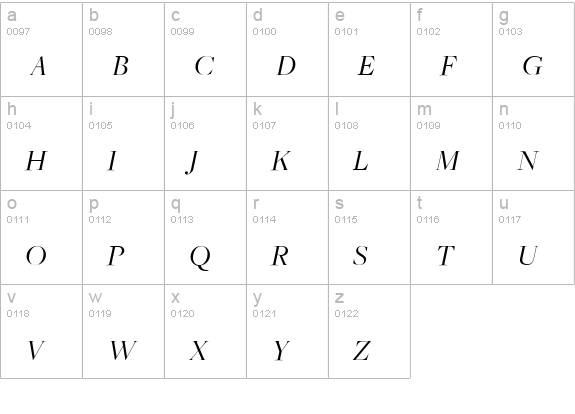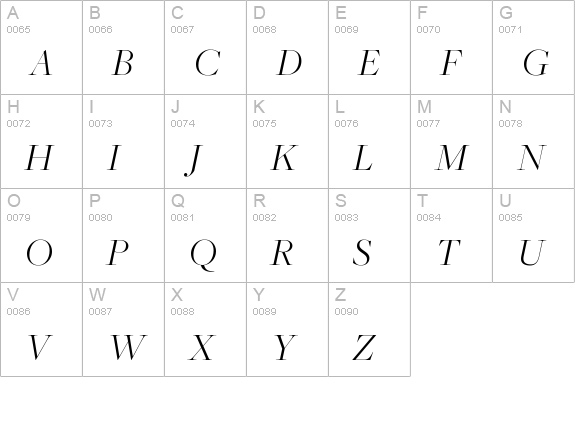
FreightBigLightItalicSC Font Details
FreightBigLightItalicSC is a sleek and elegant font that exudes sophistication and modernity. Its slender and italicized design adds a touch of style to any project, making it perfect for use in branding, advertising, and editorial design. The unique curves and angles of this font make it stand out while maintaining a sense of professionalism. The best part about FreightBigLightItalicSC is that it is available for free download at FontsMarket.com. This means that you can elevate your design projects with this high-quality font without any cost involved. Whether you're working on a website, a poster, or a logo, FreightBigLightItalicSC is sure to make a statement and leave a lasting impression on your audience. Don't miss out on the opportunity to enhance your designs with FreightBigLightItalicSC – download it for free today at FontsMarket.com and take your projects to the next level.